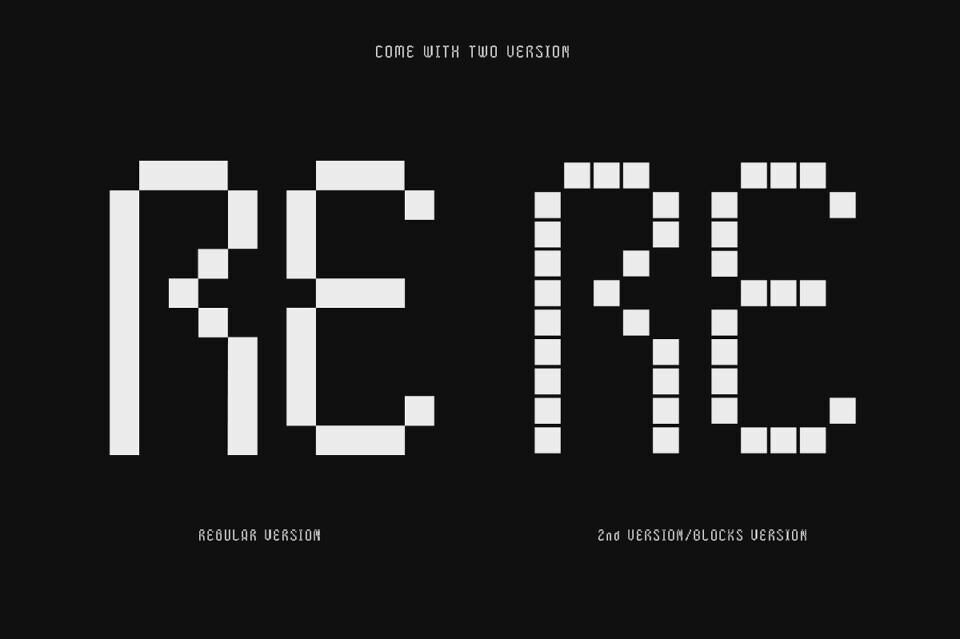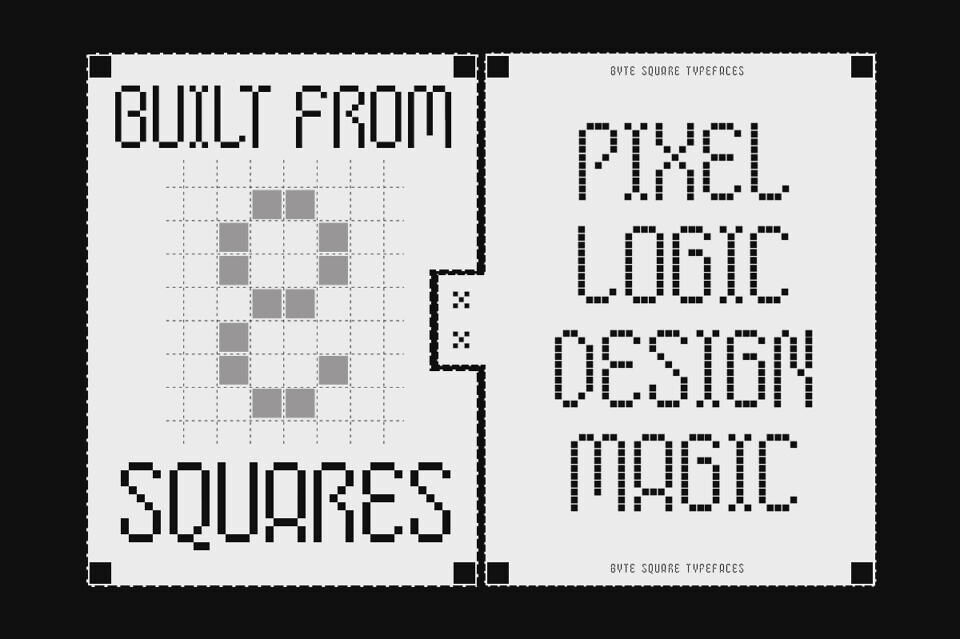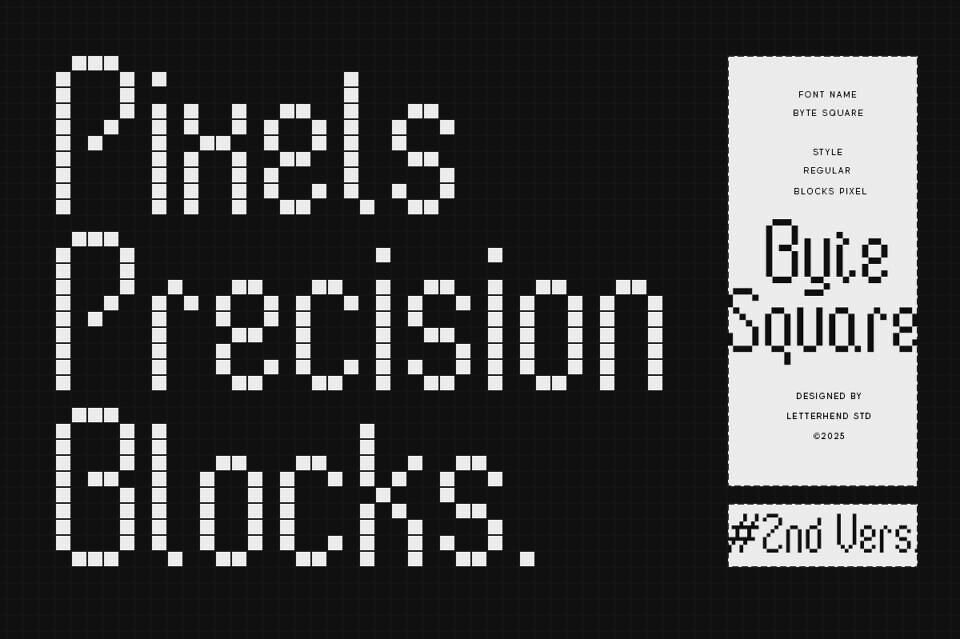
Byte Square captures the essence of digital minimalism with its precise grid-based construction and pixel-block letterforms, echoing classic 8-bit displays and early computer typography. Perfect for game interfaces, tech branding, coding-themed visuals, digital posters, and any project seeking a nostalgia and modern digital clarity.